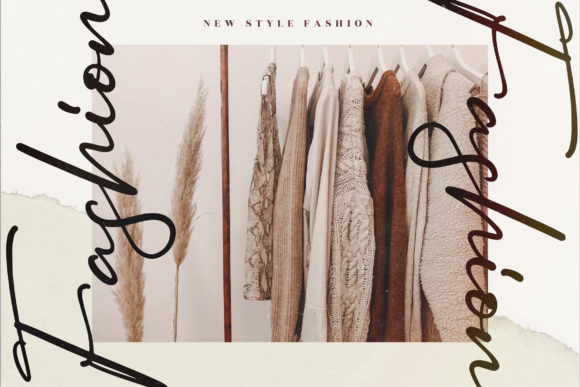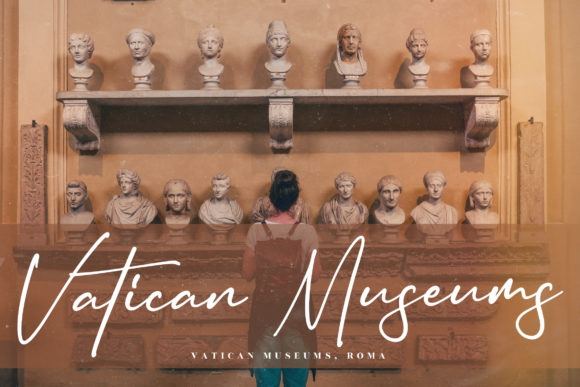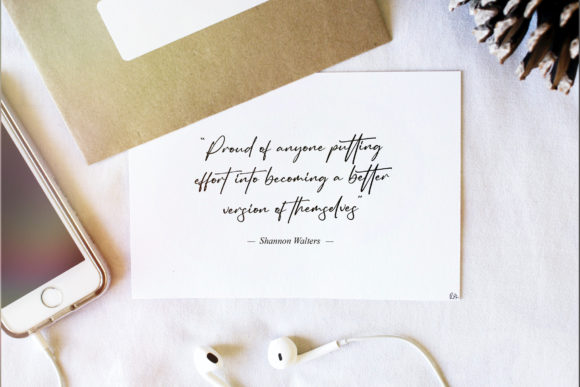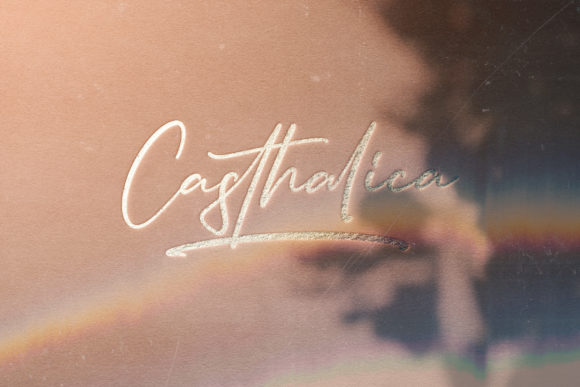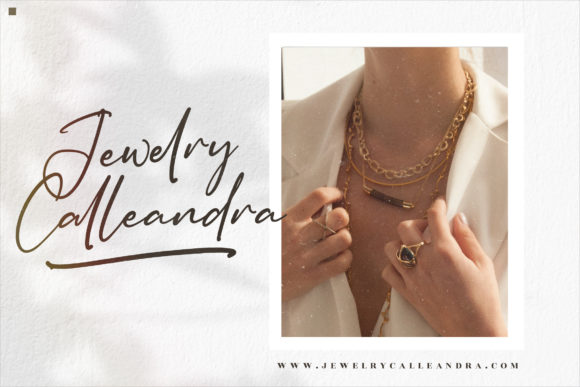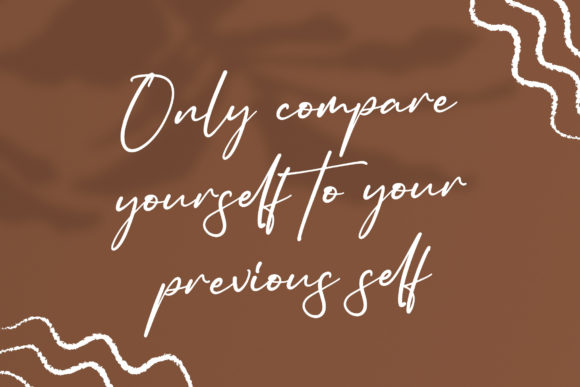
The Designer’s Delight: Exploring the Carpethen Font
I’ll never forget the time I was working on a branding project for a cozy coffee shop. I had the logo concept nailed, but I was struggling to find the perfect font to complement it. That’s when I stumbled upon Carpethen, a modern and relaxed script font that instantly caught my eye. In this article, I’ll share my experience with Carpethen, its features, and how to make the most of it in your designs.
An Honest Review of Carpethen
So, what makes Carpethen special? Here are the things I love:
- ✨ Modern and relaxed vibe: Carpethen has a unique blend of modernity and elegance, making it perfect for a wide range of design projects.
- ✅ PUA encoded: The font is PUA (Private Use Area) encoded, which means you can access all the glyphs and swashes with ease.
- 🎉 Highly versatile: Carpethen works well for logos, branding, packaging, and even digital media.
Now, let’s talk about some minor quirks:
- 🤔 Limited use in formal contexts: While Carpethen is amazing for creative projects, it might not be the best fit for formal or corporate designs.
- ⚠️ Some swashes may not work well in all sizes: When using swashes, make sure to test them at different font sizes to ensure they look great.
The Story Behind Carpethen
Carpethen was designed with the intention of creating a modern, yet relaxed script font that would be perfect for creative projects. The designer aimed to craft a font that would be both elegant and approachable, making it suitable for a wide range of design applications.
| Font Name | Carpethen Font |
| Author | Glorytype Studio |
| What is PUA encoding? | PUA (Private Use Area) encoding allows designers to access additional glyphs and swashes in a font, making it more versatile and flexible. |
| Is Carpethen suitable for body text? | While Carpethen is a beautiful font, it’s best suited for headlines, titles, and short paragraphs. For body text, you may want to choose a font with better readability. |